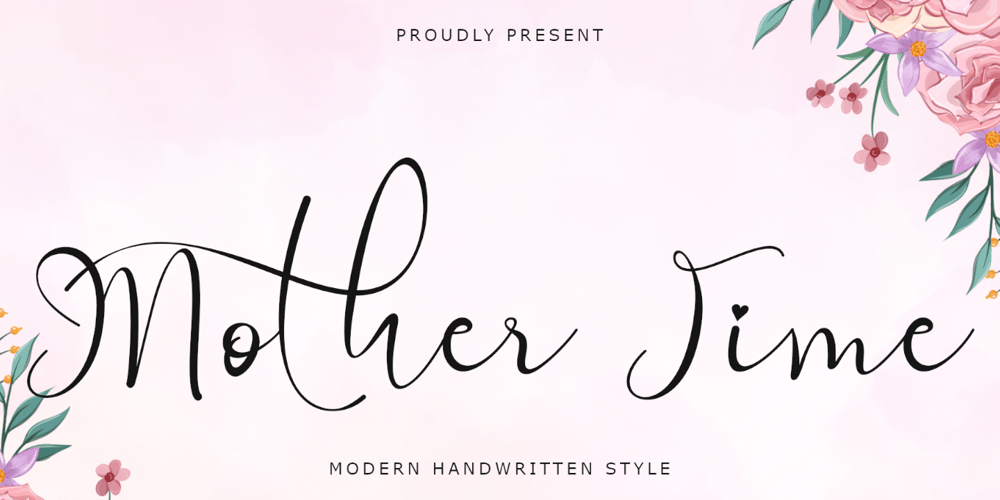
Mother Time Font Family was designed by Isroni Yoga Prasetya and published by Yoga Letter. Mother Time contains 1 styles and family package options. “Mother Time” is a beautiful handwritten font. This font is equipped with uppercase, lowercase, ligatures, numerals, punctuations and multilingual support. Very suitable for spring, summer, wedding, party, banners, branding, stickers, logos and others.